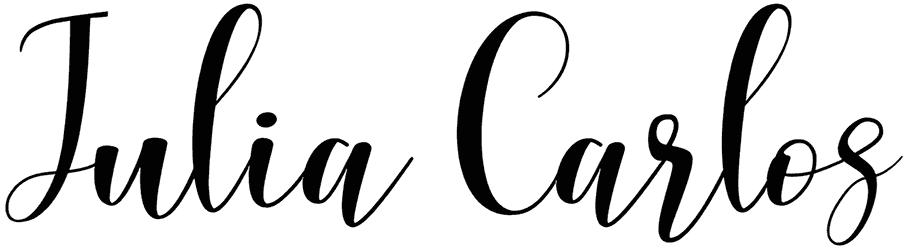
Julia Carlos Font
Julia Carlos font is mostly needed for occasions because, thanks to its feminine look, it will add a smooth and impressive touch to the contents. The calligraphy font will be perfect for a variety of design purposes, like daily care products, the fashion industry, and both printed and screen texts. Be creative, we hope this script font will contribute to your awesome messages.